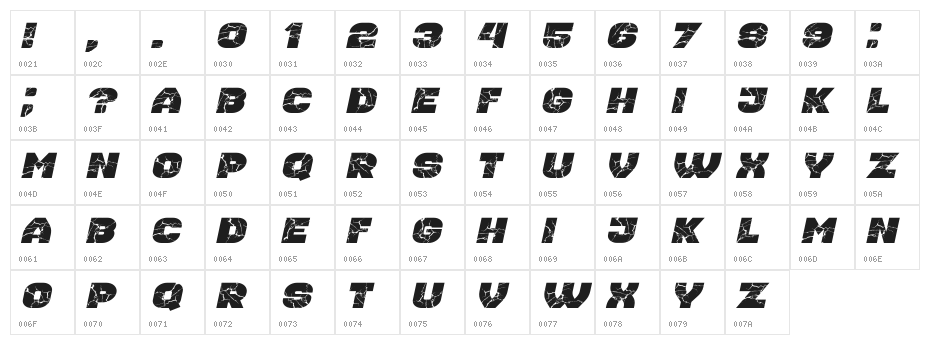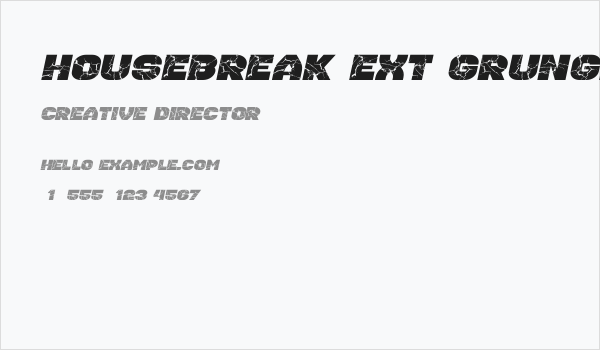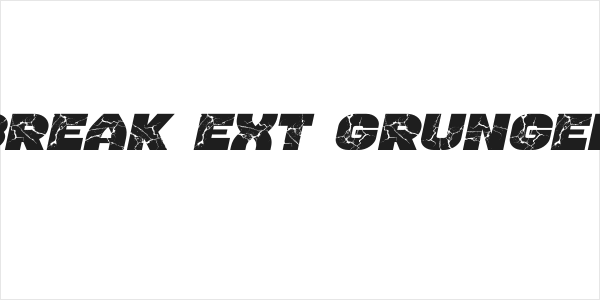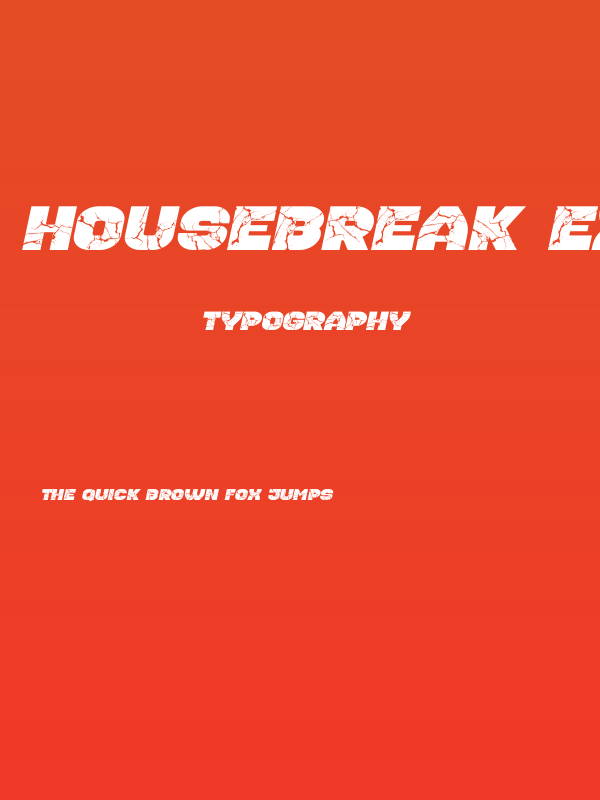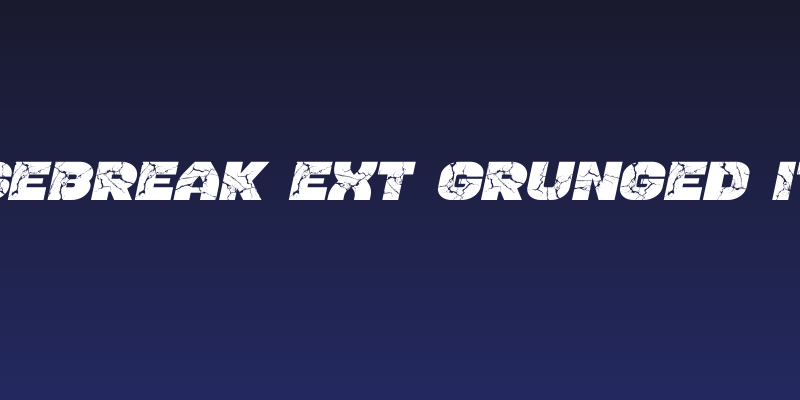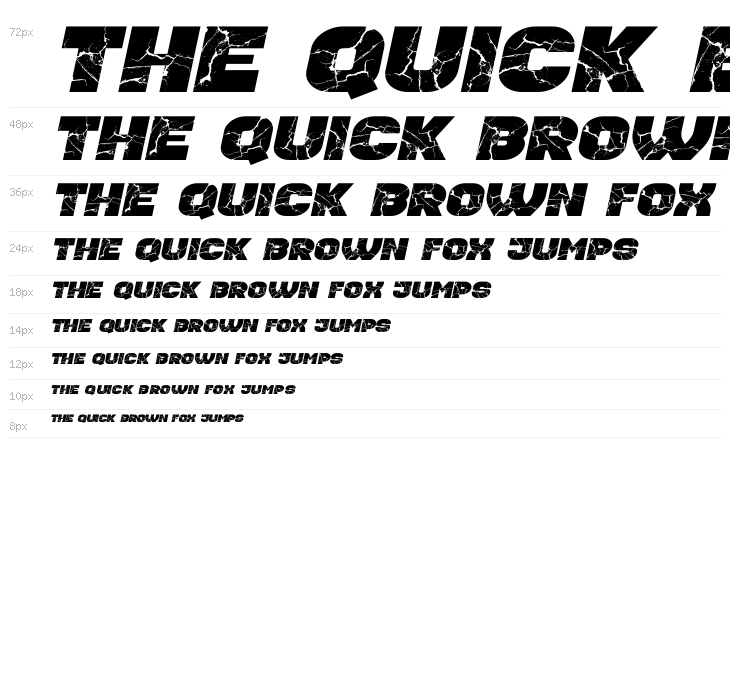
Housebreak Ext Grunged Italic Font
Housebreak Ext Grunged Italic Description
This font features a bold, italicized style with a distinct grunge texture that gives it a rugged, distressed appearance. The characters are heavily stylized with a cracked, worn-out look, making it ideal for designs that require a gritty, urban feel. The uppercase letters are prominent and impactful, while the numbers and special characters maintain the same distressed aesthetic. This font is perfect for projects that aim to convey a sense of edginess or rebellion, such as music album covers, posters, or streetwear branding.
| Overall Style | Grunge, Urban, Edgy |
| Proposed Projects | Ideal for music album covers, edgy posters, streetwear branding, and urban-themed designs. |